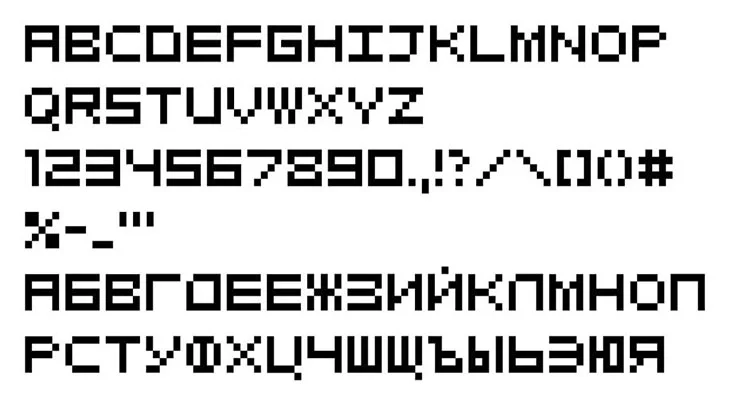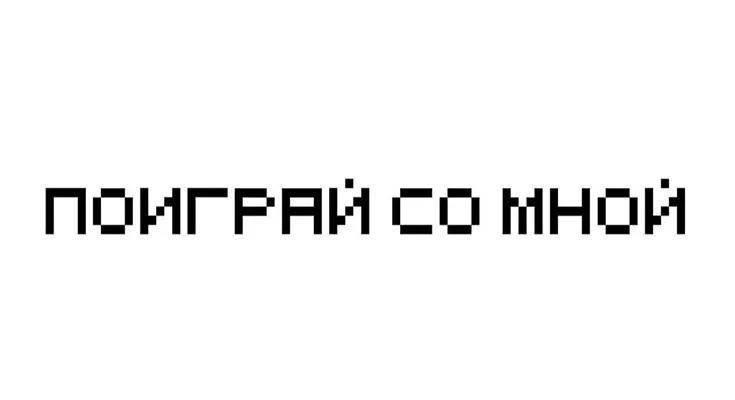
FontOverFont is a retro pixel display typeface that exudes charm and character, making it a must-have for any designer or gamer to evoke that classic 8-bit vibe.
IIya Zakharova is known as the primary designer of this font. It is a great choice for a gaming theme, a movie title, a documentary header, a logo, a poster, and more.
This font is extremely versatile and a must for any creative who wants to try out new ideas. It has a unique quality that can enhance any project, regardless of its nature.
Font Over is available in a single variant that has uppercase, and lowercase characters, numbers, punctuation, symbols, and a web font. Moreover, Font Over includes 232 glyphs and supports 41 languages.
Style:Pixel, Retro, Display
This remarkable font is great for a variety of design purposes such as pen, sign, and title designs, as well as celebration card designs. It is also perfect for informational books, magazine covers, product packaging, and corporate text.
It is suitable for use in brochures, greeting card designs, social media posters, geometric text designs, and serif headline design purposes. It is also suitable for use in letterhead designs, journals, and stylish name designs.
This font supports 41 languages.